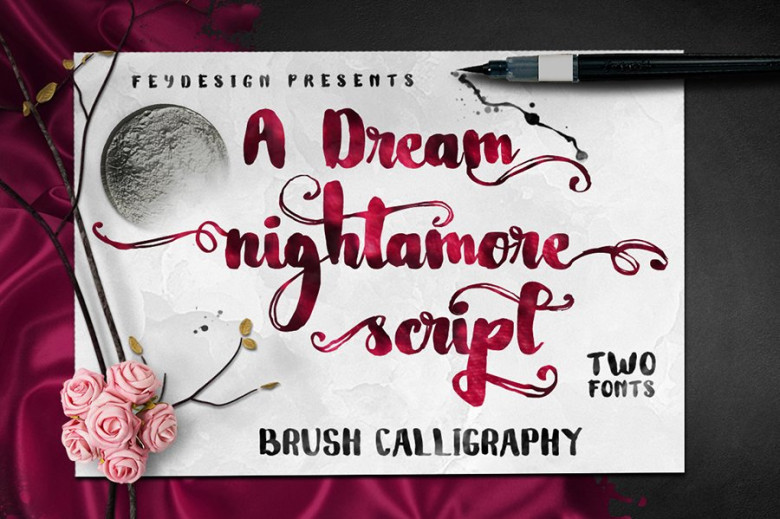
Nightamore Brush Font
Nightamore-Brush is a perfectly imperfect hand-drawn brush font which is great to give a modern vintage calligraphic-style on any designs. Thisfree font suitable for wedding invitation, t-shirt, logo, badges, sticker, or anything you may think it would fits.